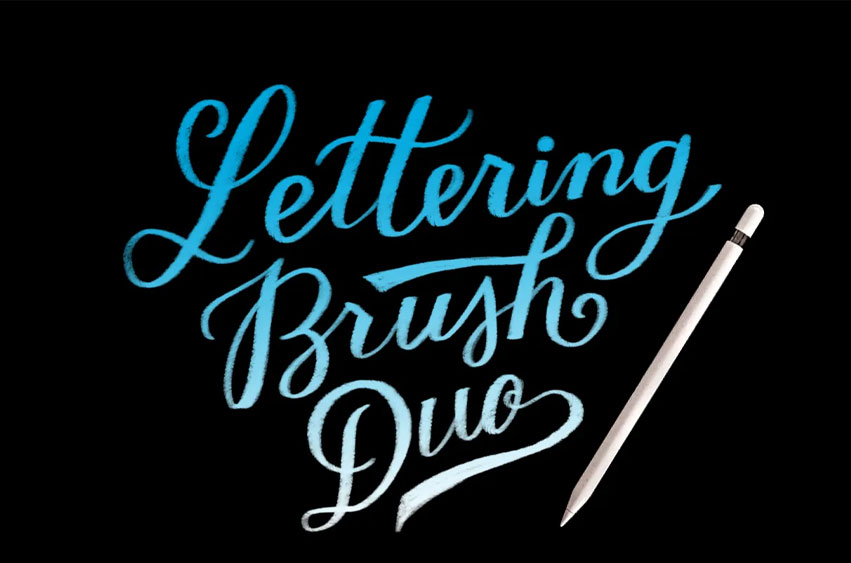
Procreate Lettering Font
Procreate Lettering Font Present the product called the Procreate Lettering brush Duo from Mila Garret Studio. The brushes made for this interface were designed to mimic the analog tools including two types of brushes- textured and acrylic brush.